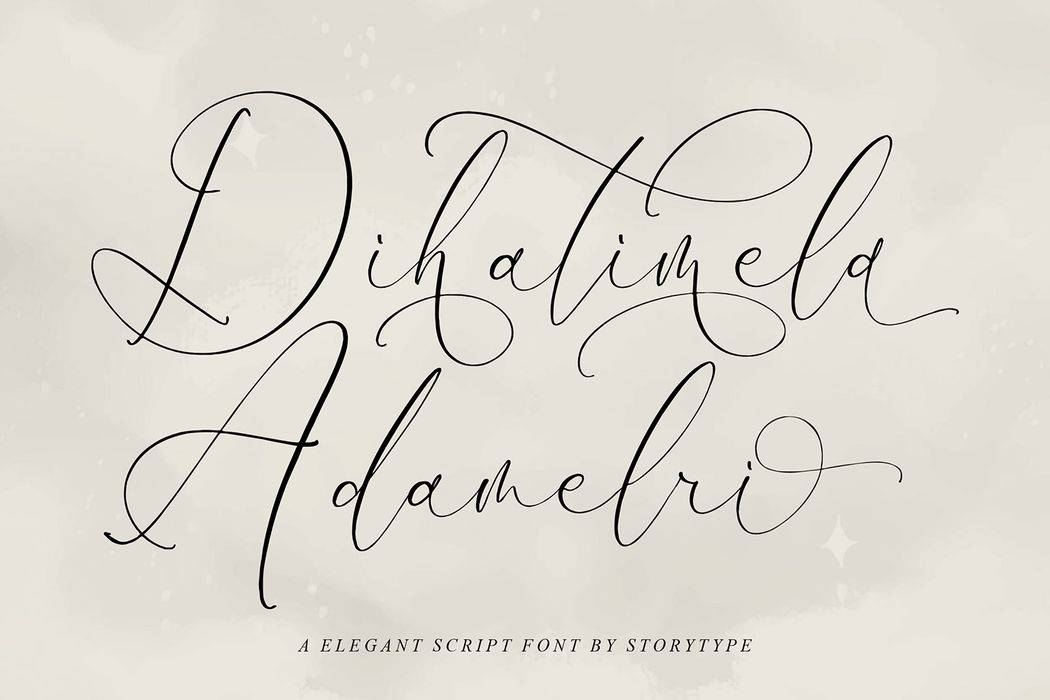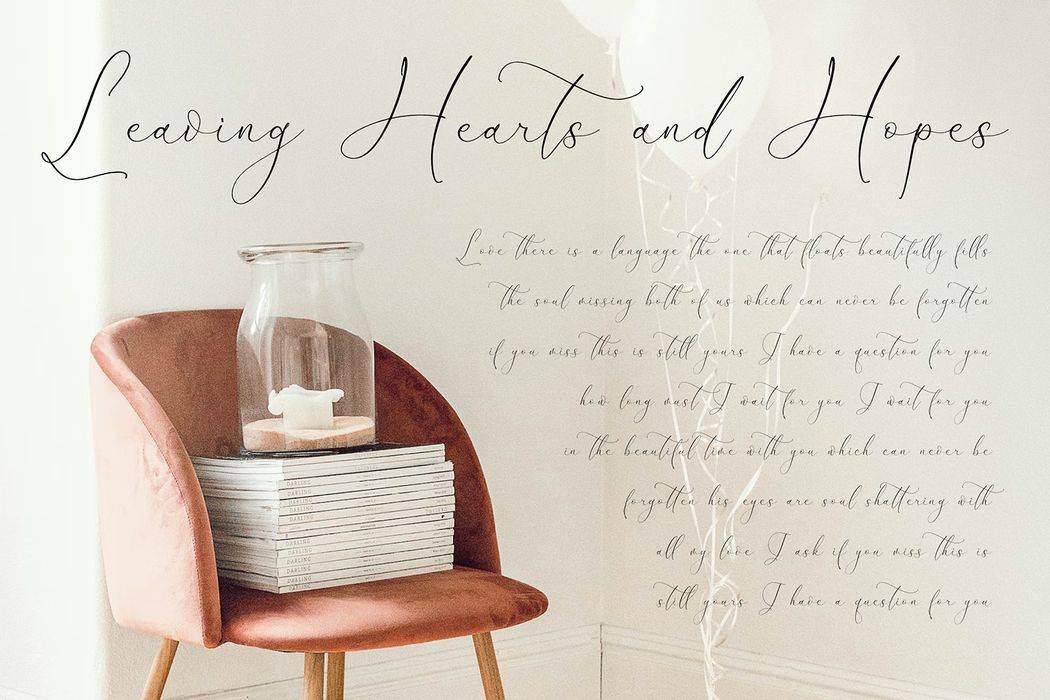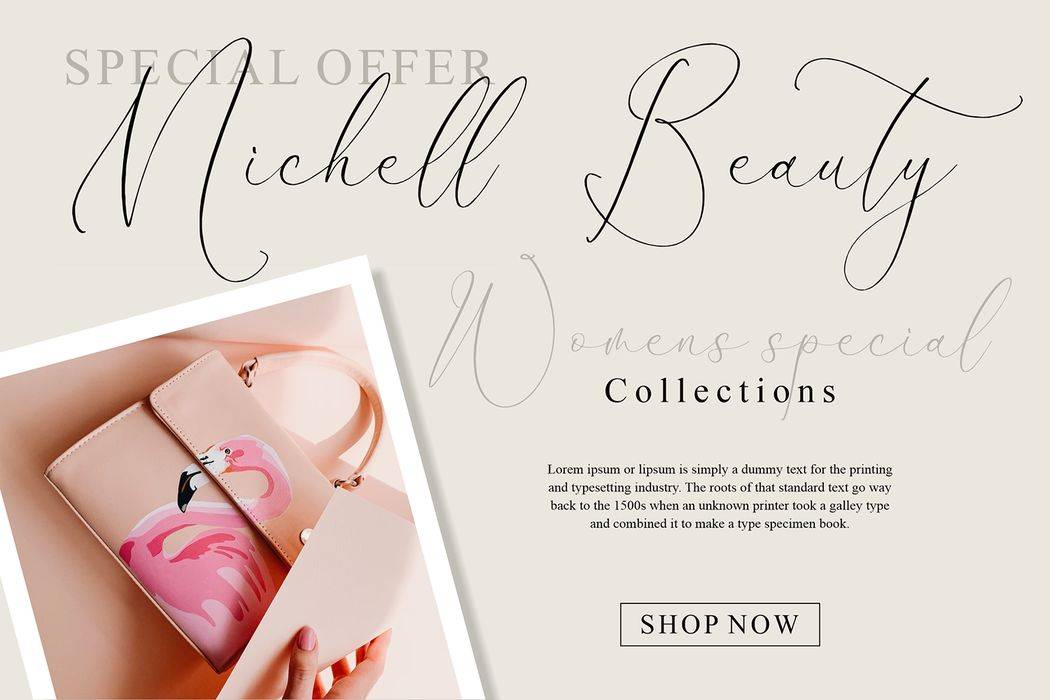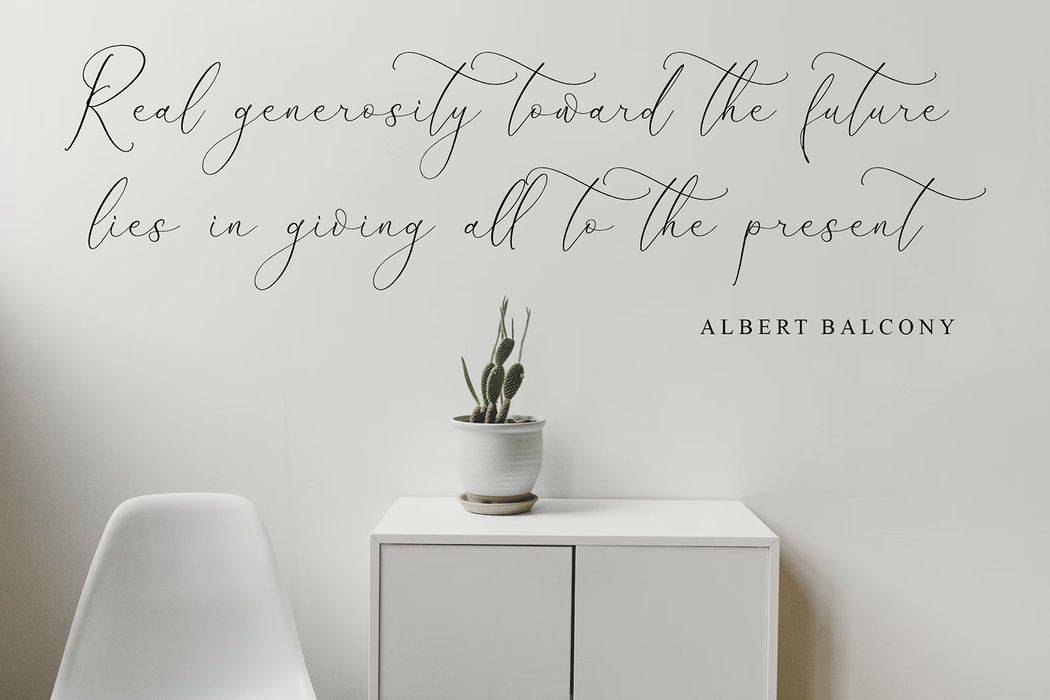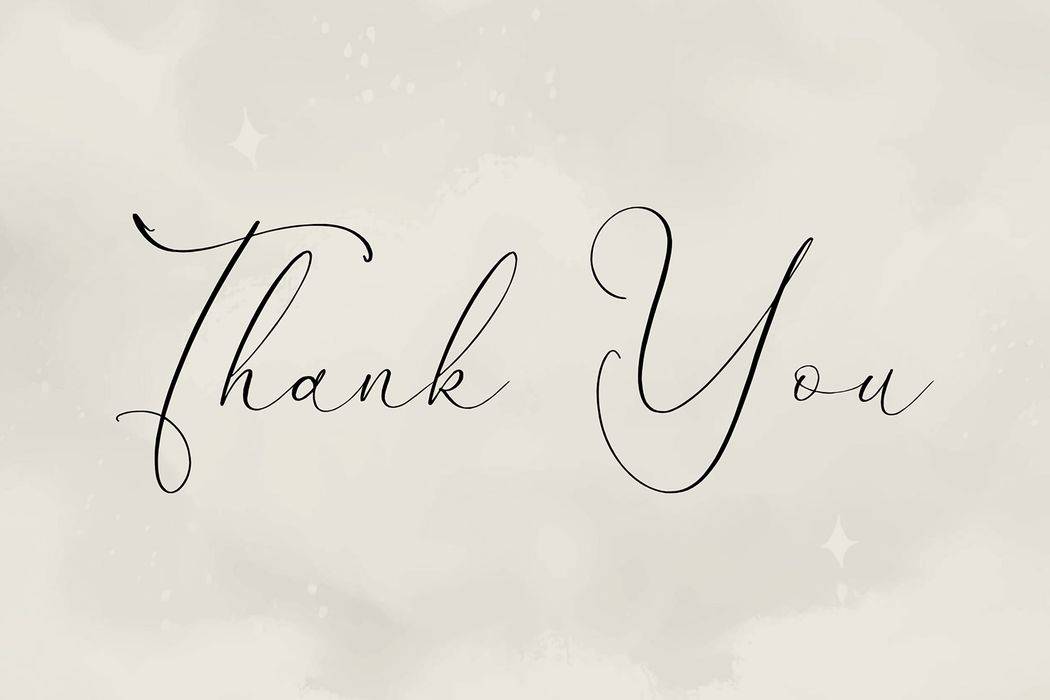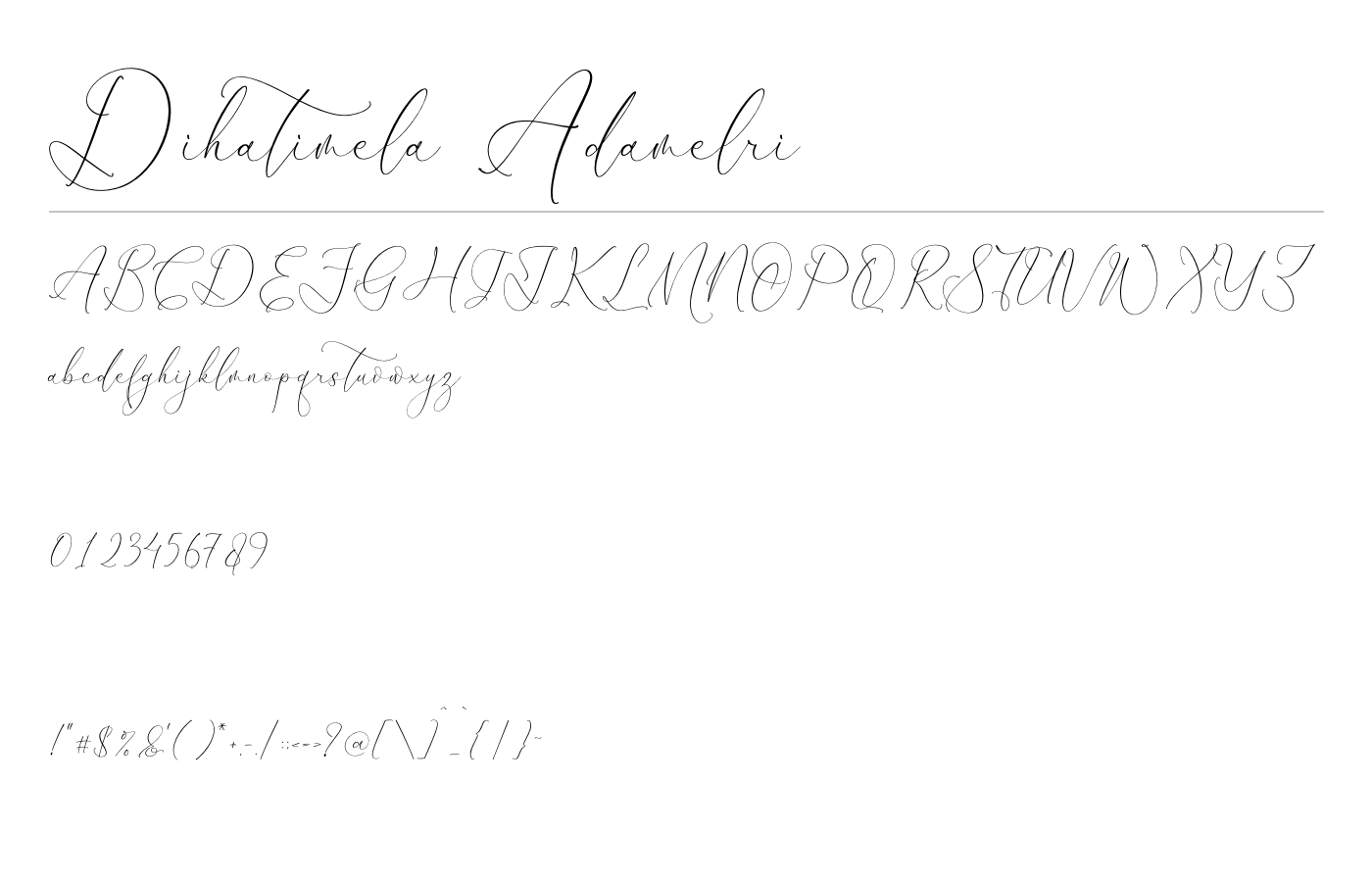
Dihatimela Adamelri is an elegant, delicate script font characterized by its thin, flowing strokes and graceful, tall letterforms. With its fine lines and decorative swashes, it conveys a sense of sophistication and luxury, making it ideal for wedding invitations, high-end branding, and romantic or feminine designs. This font excels in decorative headlines and logos where an ornate, hand-lettered feel is desired.
Dihatimela Adamelri Font
About Dihatimela Adamelri Font